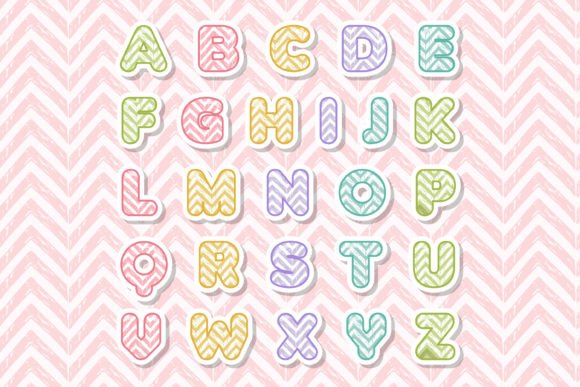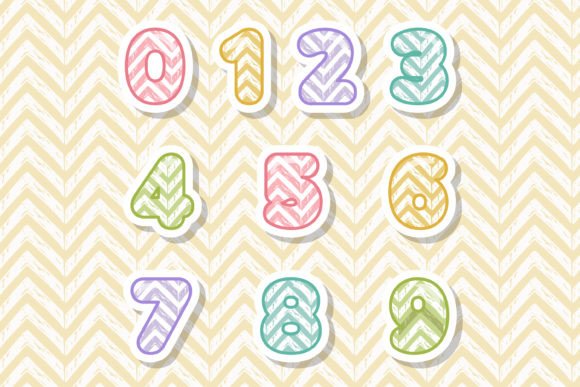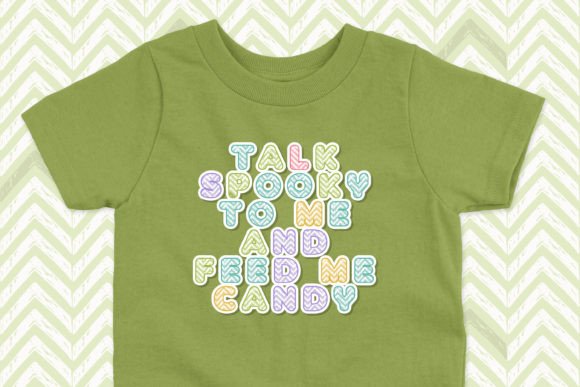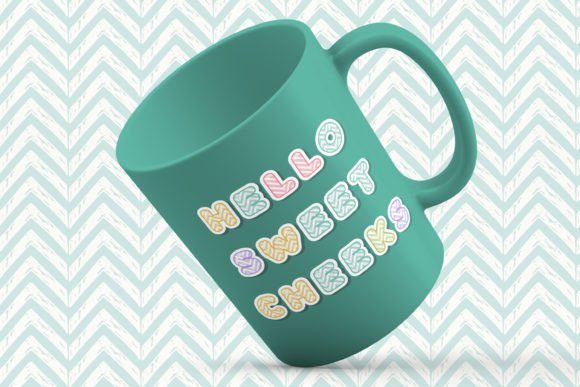
Introduction to Lovely Candy Font
Lovely Candy is an incredibly cool color font designed in the style of Zigzag Wrapper Pattern.
Whether you use it for custom designs, DIY crafts, or just any creation that requires a lovely touch, this font will be an amazing choice .
Key Features of Lovely Candy Font